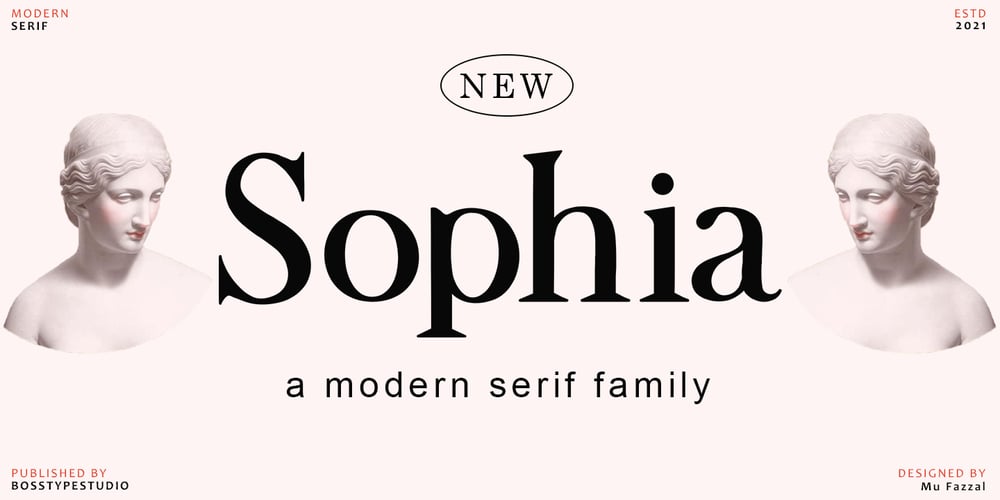
Sophia Font Family was designed by Mu Fazzal and published by Bosstypestudio. Sophia contains 5 styles and family package options. Sophia is a display font that strikes the perfect balance between classic and modern, combining serif and sans serif styles in a unique way. Its timeless appeal makes Sophia a great choice for stylish and impactful designs. The font family includes 5 different weights, uppercase, lowercase, punctuation, and multilingual support.Includes: Sophia Regular (uppercase & lowercase) Sophia Italic (uppercase & lowercase) Sophia Outline (uppercase & lowercase) Sophia Bold (uppercase & lowercase Sophia Heavy (uppercase & lowercase) Numbers & punctuation Foreign language support If you have any question, don’t hesitate to contact me by email :bosstypestudio@gmail.comThank you!